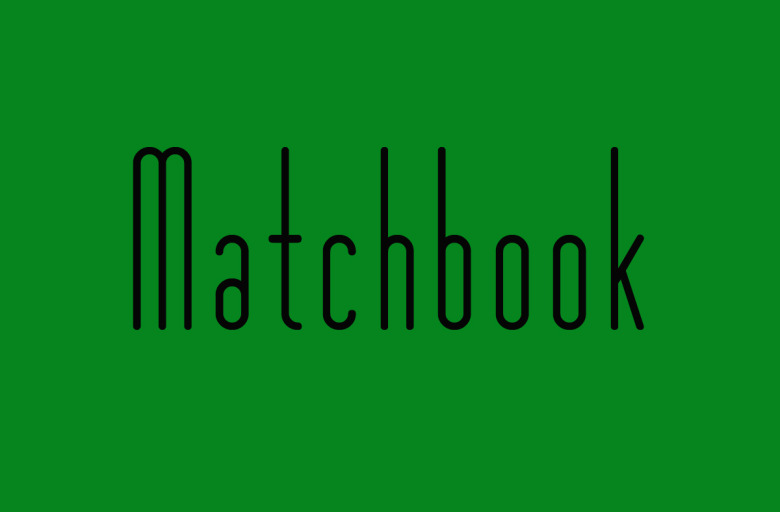
Matchbook Font
Matchbook is a high quality Sans Serif font that is designed by One by Four and is available for free download and personal use. The free version provides all uppercase and lowercase letters and a few special characters too.
Matchbook Sans Serif Font